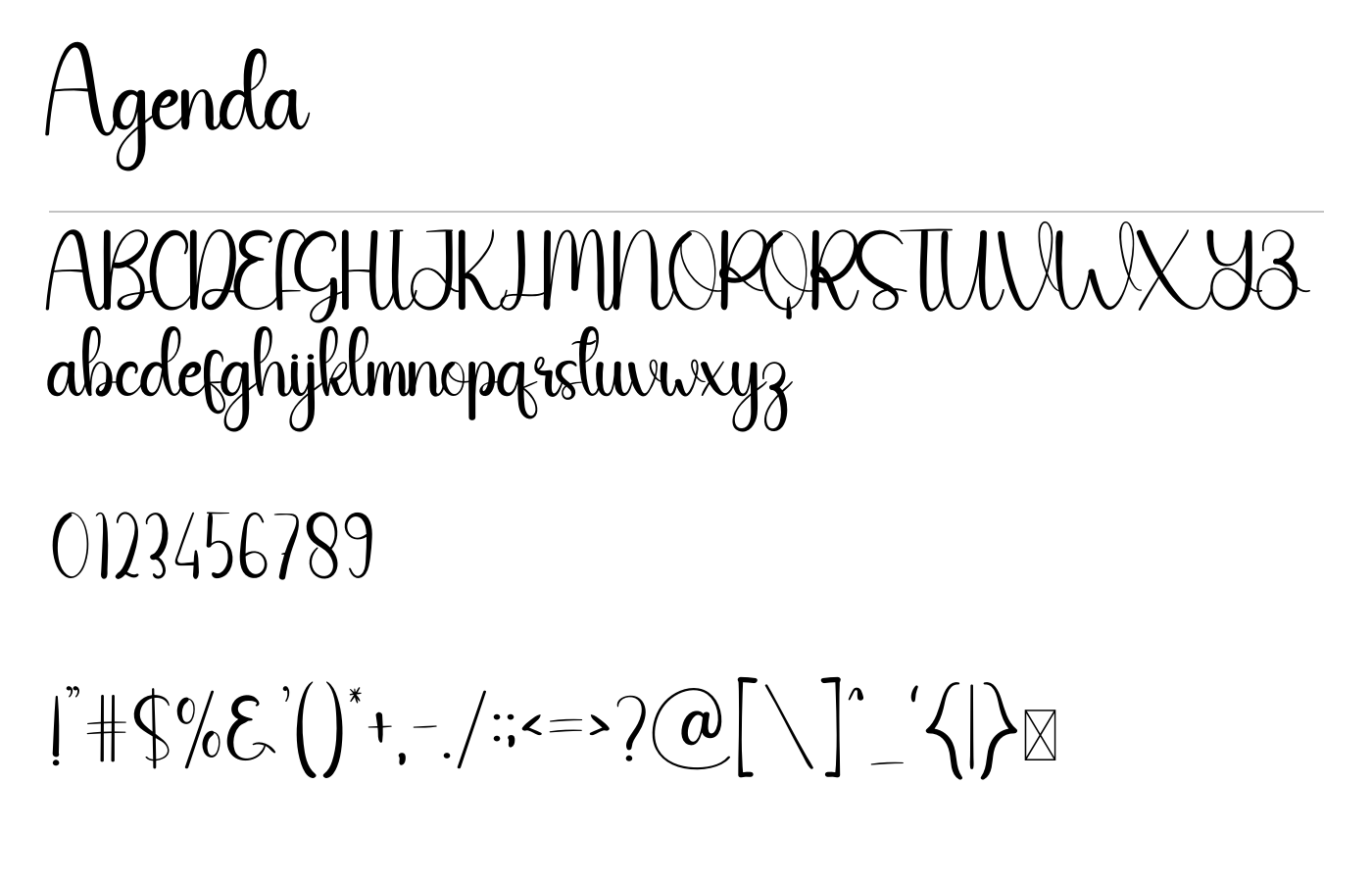
Agenda is a playful and elegant script font with a delicate, hand-drawn feel. Its narrow and tall letterforms feature smooth curves and distinctive loops, giving it a charming, casual personality perfect for creative projects, invitations, and branding that seeks a friendly yet refined touch. This font works well in headlines and decorative text where a warm and whimsical style is desired.
Agenda Font